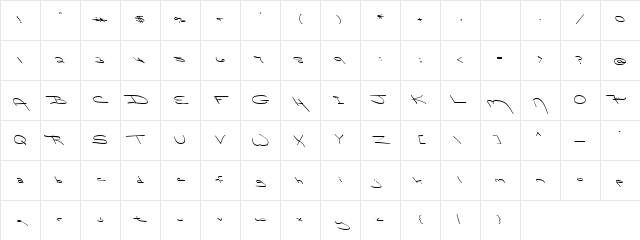
LD Print 21 Regular
Design Context for LD Print 21
LD Print 21 is a composed and adaptable typeface that performs quietly and consistently across a wide range of design contexts.
Pro Tip: Use LD Print 21 in both headline and body roles to test its range before committing to a single application.